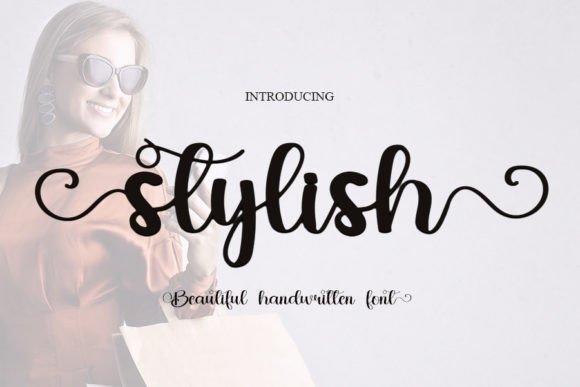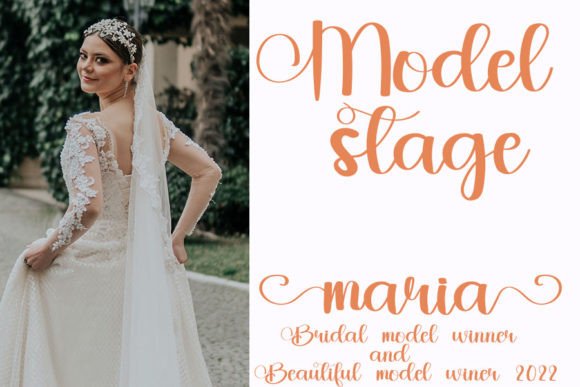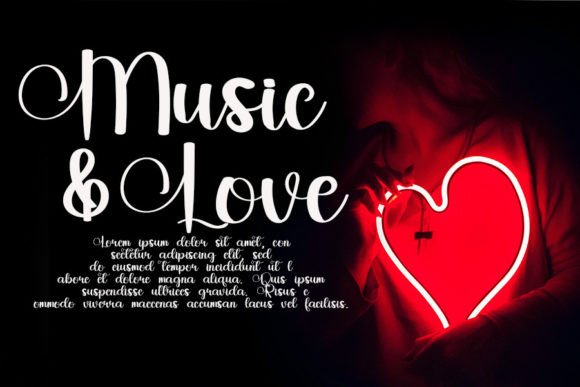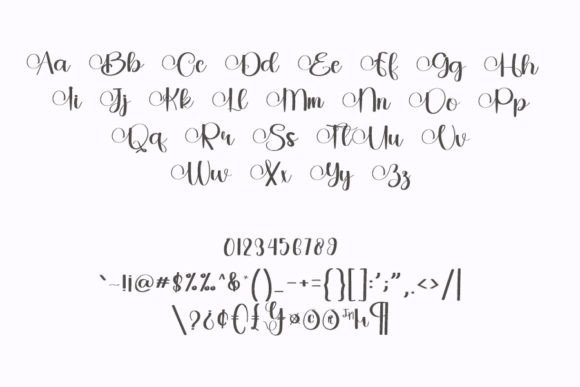
About Stylish Handwritten Font
Stylish Handwritten Font is a modern script typeface designed with inspiration from classic calligraphy. With spotless curves, smooth rhythm, and balanced strokes, it provides elegance and creativity in equal measure. Because of its timeless yet trendy appeal, Stylish Handwritten Font is perfect for branding, invitations, packaging, social media posts, and wedding stationery.
A Modern Typeface with Calligraphic Influence
Handwritten fonts bring character to design, and Stylish HandwrittenFont captures that quality with precision. Its strokes are not too thin and not too thick, creating a natural flow that feels both professional and approachable. In addition, the calligraphic influence ensures sophistication, making it versatile for formal and casual design needs.
Special occasions demand unique typography, and Stylish HandwrittenFont excels in this role. For example, it can transform wedding invitations, thank-you cards, and event menus into elegant works of art. Moreover, it enhances birthday cards, seasonal greetings, and festive stationery with charm, ensuring every piece feels personalized and authentic.
A Script Typeface for Branding and Packaging
Businesses and creatives can use Stylish HandwrittenFont to strengthen brand identity. It works beautifully on boutique logos, product labels, and promotional designs. Furthermore, it adapts seamlessly to digital campaigns, magazine layouts, and social media graphics. When paired with clean sans serif fonts, it creates a professional yet stylish aesthetic.
Flexible Across Print and Digital Media
Another advantage of Stylish HandwrittenFont is its adaptability across different mediums. In print, it shines on posters, brochures, and merchandise. Digitally, it integrates smoothly into blogs, websites, and online shops. Since it maintains clarity from small icons to large-scale banners, it performs consistently across all formats.